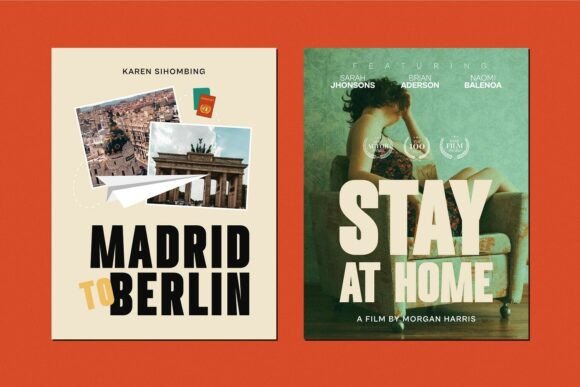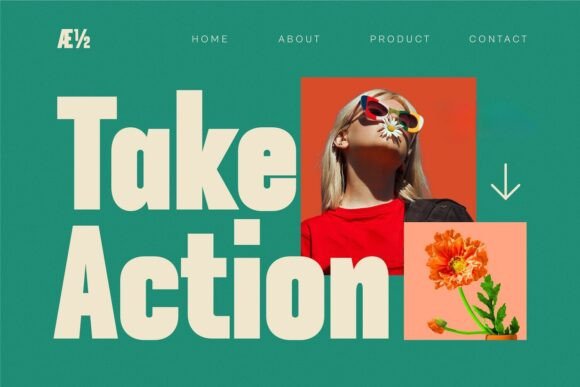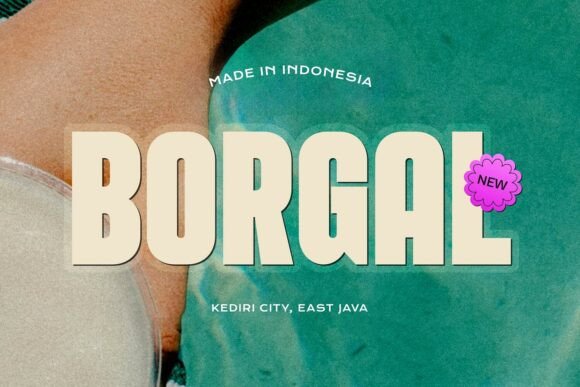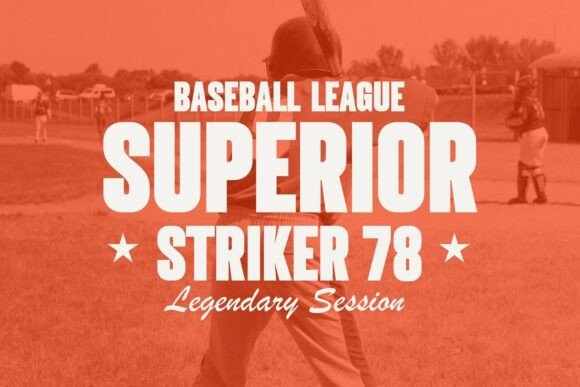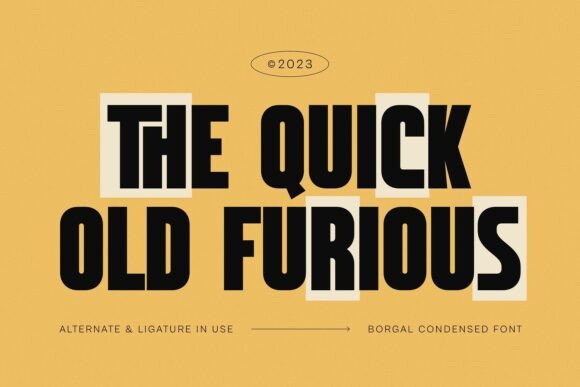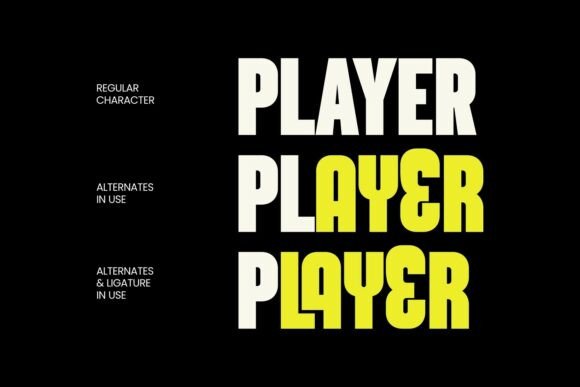
Introducing Borgal Font: The Ultimate Choice for Bold and Modern Designs
In the world of typography, fonts play a crucial role in conveying messages, evoking emotions, and creating lasting impressions. For designers and crafters looking for a font that combines industrial style with modern geometric sensibilities, Borgal Font is an excellent choice. This bold and condensed sans serif font is designed to make a statement, making it perfect for headlines, posters, and brands that demand attention.
The Design Philosophy of Borgal Font
Borgal Font is inspired by mid-century industrial style, which is characterized by simplicity, functionality, and a touch of ruggedness. The font’s designer aimed to create a typeface that not only pays homage to this design era but also incorporates modern geometric sensibilities. The result is a font that exudes confidence, energy, and a sense of adventure.
One of the standout features of Borgal Font is its strong, compact letterforms. Each character is carefully crafted to be bold and legible, even at large sizes. The font’s minimal contrast ensures that it remains clear and readable, making it perfect for use in headlines, titles, and other display text.
Uses of Borgal Font
Borgal Font’s versatility makes it an excellent choice for a wide range of design applications. Some of the most popular uses of this font include:
• Outdoor adventures: Borgal Font’s rugged and adventurous vibe makes it perfect for branding and marketing materials related to outdoor activities such as hiking, camping, and extreme sports.
• Sports: The font’s bold and energetic feel makes it an excellent choice for sports branding, including team logos, jerseys, and promotional materials.
• Bold titles: Borgal Font is designed to make a statement, making it perfect for use in titles, headlines, and other display text.
• Sleek logos: The font’s modern geometric sensibilities make it an excellent choice for creating sleek and modern logos that demand attention.
• Posters: Borgal Font’s bold and compact letterforms make it perfect for use in posters, flyers, and other print materials.
• Lifestyle branding: The font’s versatility and modern feel make it an excellent choice for lifestyle branding, including fashion, beauty, and wellness.
• Advertising: Borgal Font’s bold and attention-grabbing design makes it perfect for use in advertising, including billboards, print ads, and digital campaigns.
• Website hero: The font’s large size and readability make it an excellent choice for use in website headers and hero sections.
• Merchandise: Borgal Font’s bold and modern design makes it perfect for use on merchandise, including t-shirts, hats, and other promotional items.
Features of Borgal Font
Borgal Font comes with a range of features that make it an excellent choice for designers and crafters. Some of the key features include:
• PUA encoding: Borgal Font includes PUA encoding, which makes it easy to access all special characters and decorative elements without additional software.
• Bold and condensed design: The font’s bold and condensed design makes it perfect for use in headlines, titles, and other display text.
• Modern geometric sensibilities: Borgal Font’s modern geometric sensibilities make it an excellent choice for creating sleek and modern designs.
• High readability: The font’s minimal contrast and bold letterforms ensure high readability, even at large sizes.
Font Name Borgal Font
Author imoodev
In conclusion, Borgal Font is an excellent choice for designers and crafters looking for a bold and modern sans serif font. Its unique combination of mid-century industrial style and modern geometric sensibilities makes it perfect for a wide range of design applications. With its strong, compact letterforms, minimal contrast, and PUA encoding, Borgal Font is sure to make a statement in any design project.
Whether you’re looking to create bold titles, sleek logos, or attention-grabbing posters, Borgal Font is the ultimate choice. Its versatility, readability, and modern design make it an excellent addition to any designer’s toolkit.